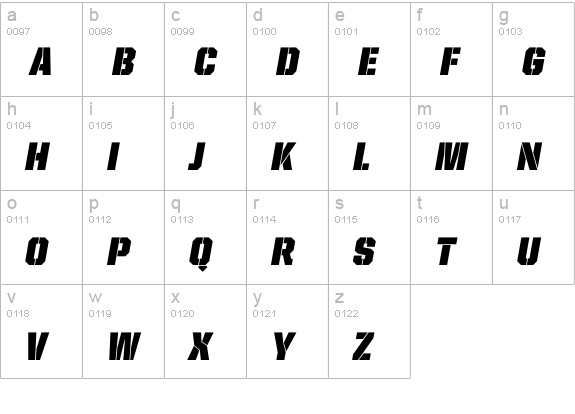
United Italic SemiCond Stencil Font Details
United Italic SemiCond Stencil is a distinctive, italic variant in the United typeface family \xE2\x80\x94 well suited to design and typography projects.
The United Italic SemiCond Stencil font is a stunning typeface that combines the elegance of italic letterforms with the modern touch of a condensed stencil design. Its unique and edgy look makes it a perfect choice for projects that require a bold and eye-catching display. This font effortlessly balances the classic and contemporary aspects of typography, creating a versatile and captivating visual experience. Whether used in graphic design, advertising, or branding, the United Italic SemiCond Stencil font adds a touch of sophistication and professionalism to any project. With its clean lines and distinct shapes, this font is an ideal choice for both digital and print media. Its condensed form allows for maximum space utilization, making it perfect for headlines, logos, and titles. The stencil design adds a touch of uniqueness and creativity, setting it apart from other fonts in its category. One of the best things about the United Italic SemiCond Stencil font is that it is freely available to download at FontsMarket.com. This means that you can easily access and use this font in your projects without any cost. Whether you are a professional designer or a hobbyist, this free font offers you the opportunity to enhance your work with a high-quality and visually appealing typeface. So, if you are looking for a font that combines elegance, modernity, and uniqueness, look no further than the United Italic SemiCond Stencil font. Its free availability at FontsMarket.com makes it an excellent choice for anyone in need of a standout typeface. Download it today and elevate your designs to new heights.